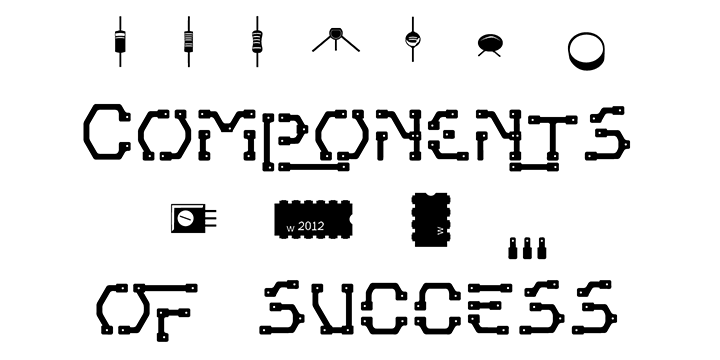
This decorative tech typeface is inspired by the printed circuits boards of the twentieth century. Its default character set suggests commercially manufactured circuits while the OpenType alternates give more of a home-brew feel.
The font is ideal for technical decorative titles in subjects as diverse as computers, techno music, ham radio, or “maker”-culture communications. It works well in large-type posters, logotypes, video games, album covers, or advertising. More…
The OpenType font contains nearly 100 discretionary ligatures to give a varied appearance, along with several alternate cuts of common characters and ten electrical components (accessible as OpenType stylistic alternates).